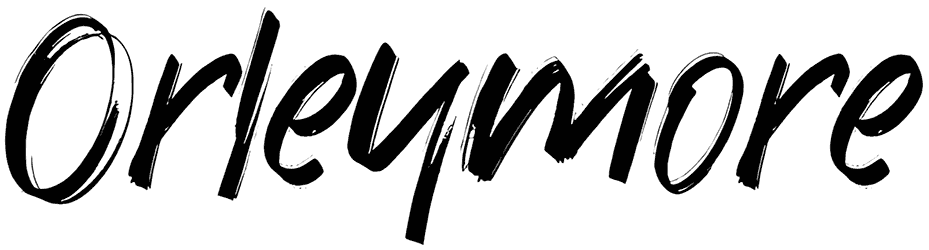
Orleymore Font
Orleymore is a script font that unbelievably fits any kind of graphic content, such as posters, book covers, product packaging, business cards, and magazines that require a personalized touch.
Since this brush font comes with a soft flow, it can convey a feeling of art, innovation, uniqueness, or approachability to the audience’s minds. Just in case you need another font the same as this one, we strongly recommend that you visit our rich library.